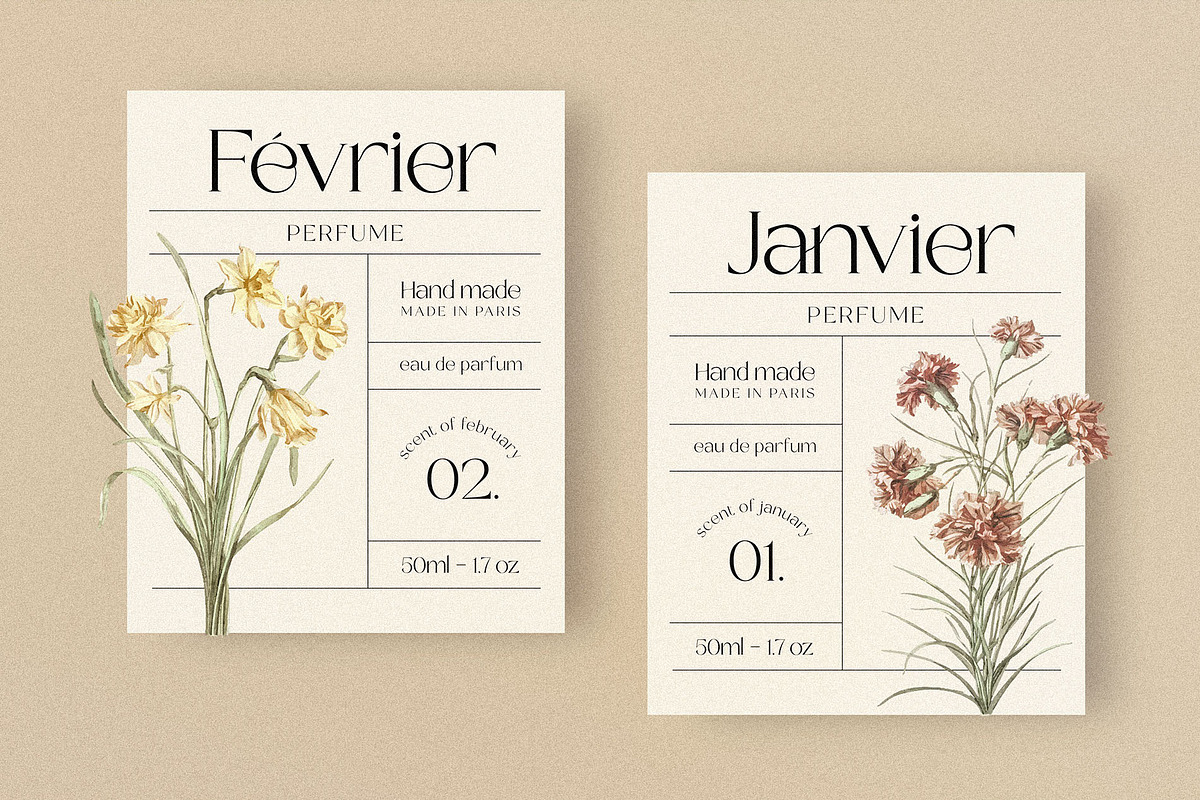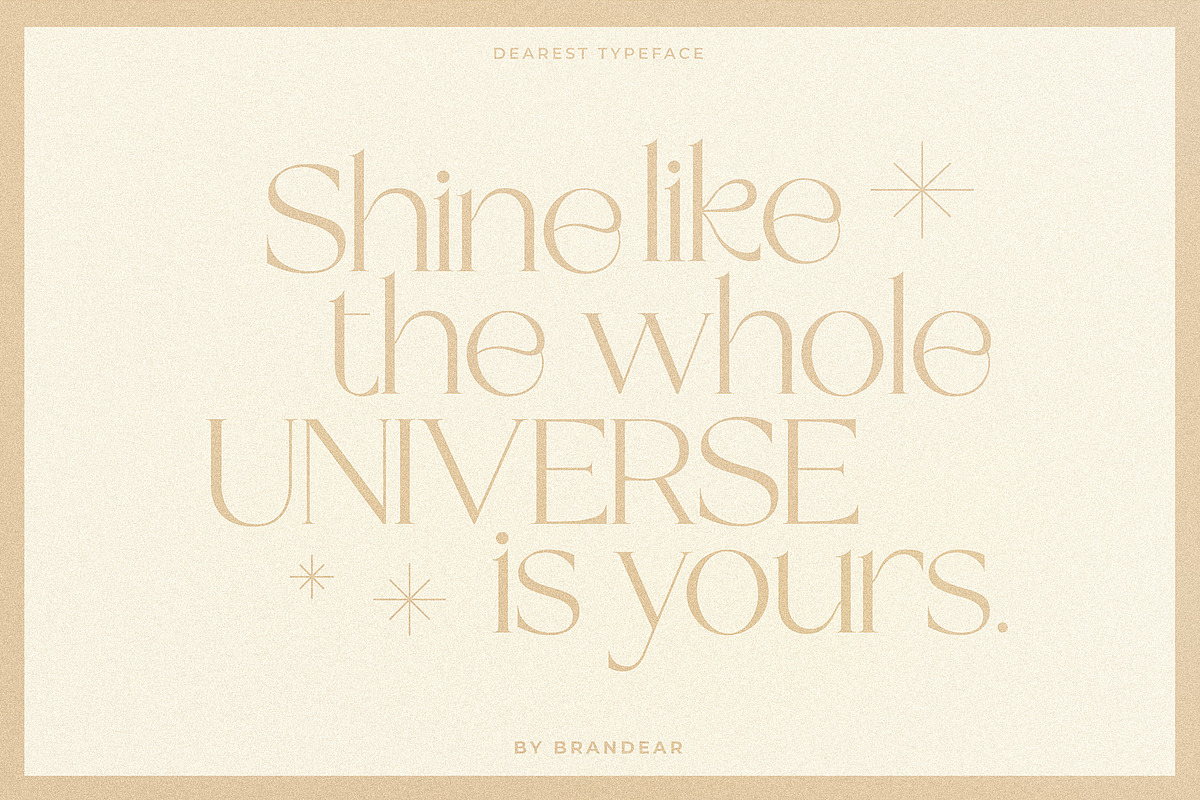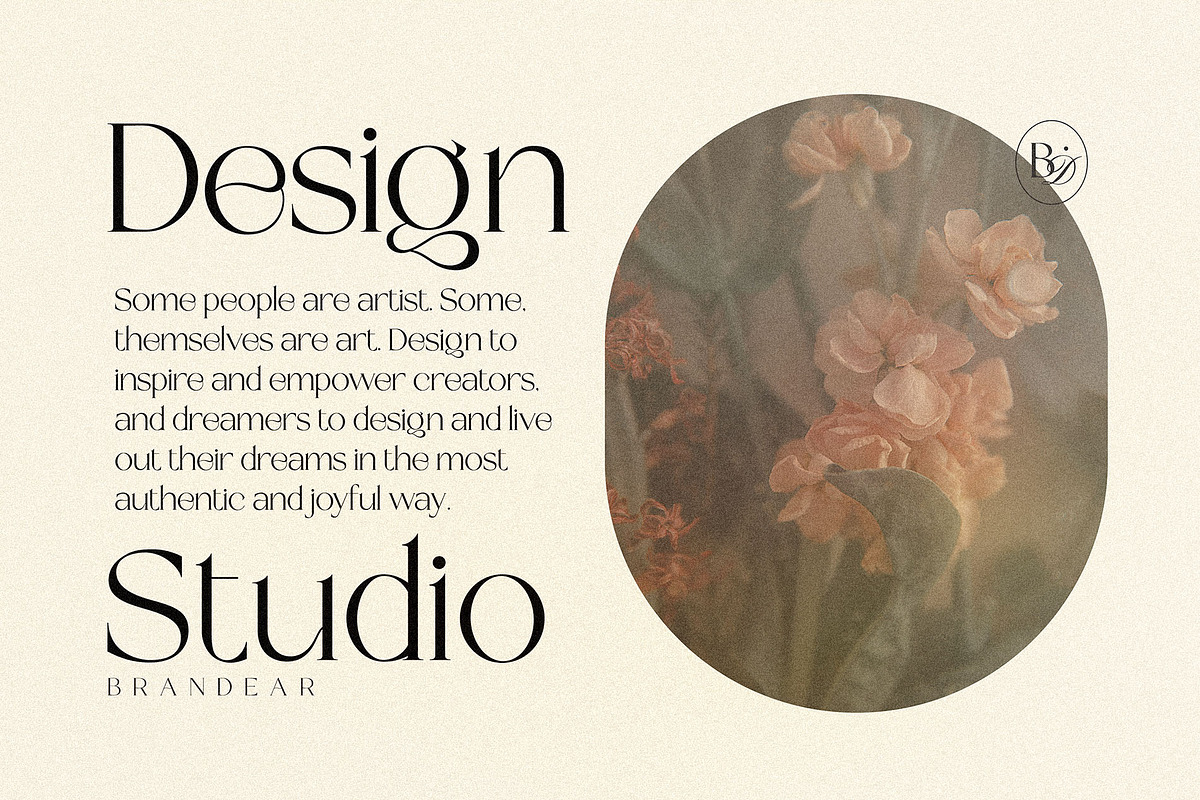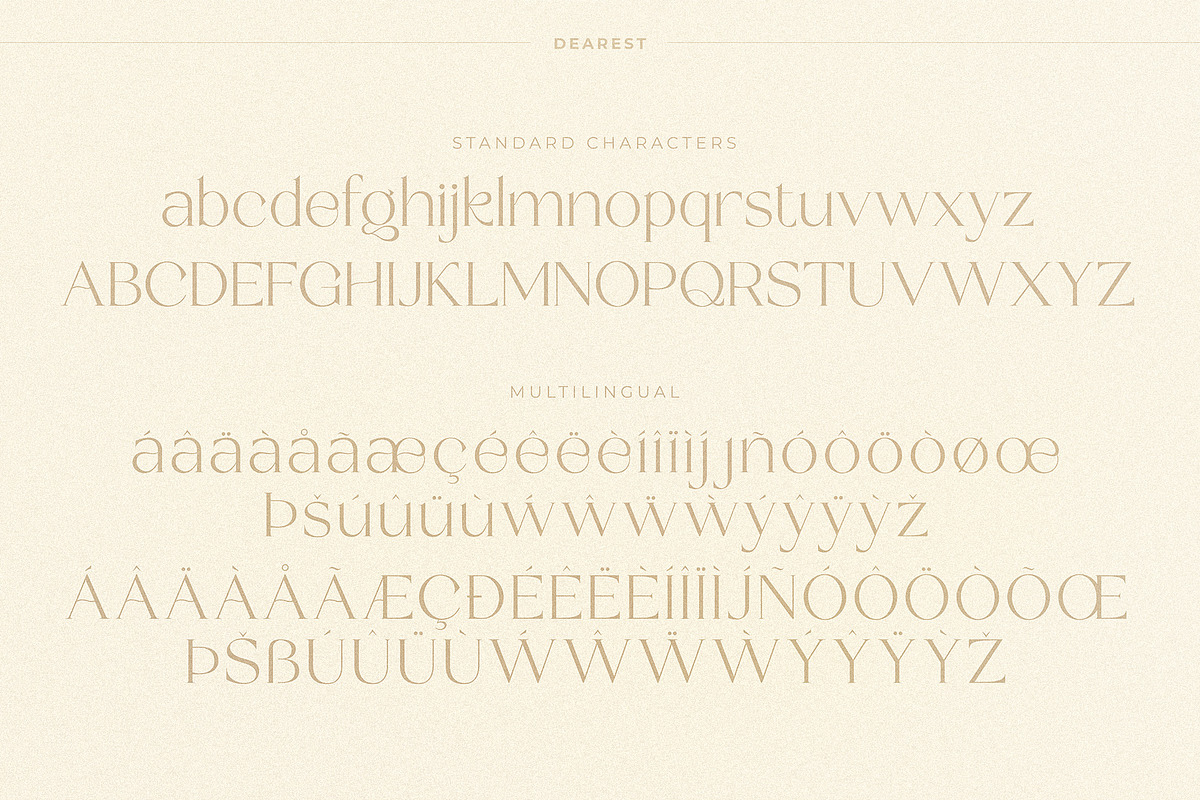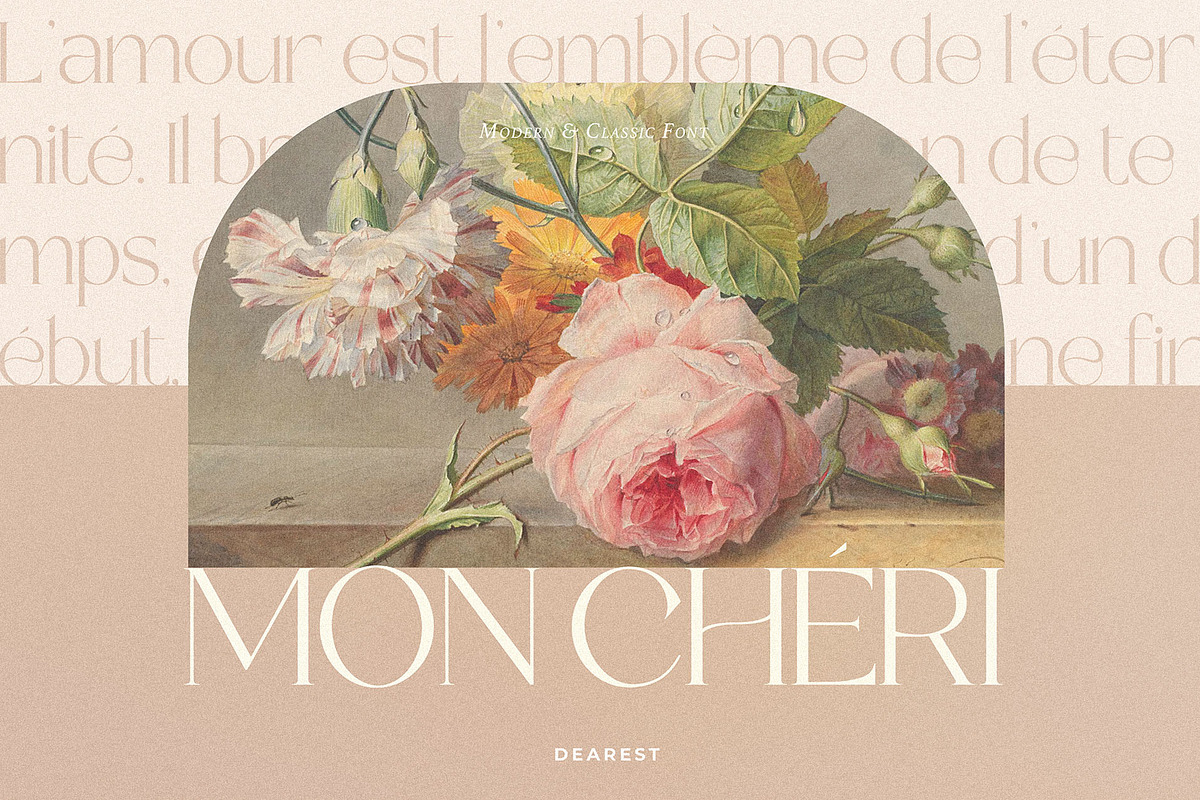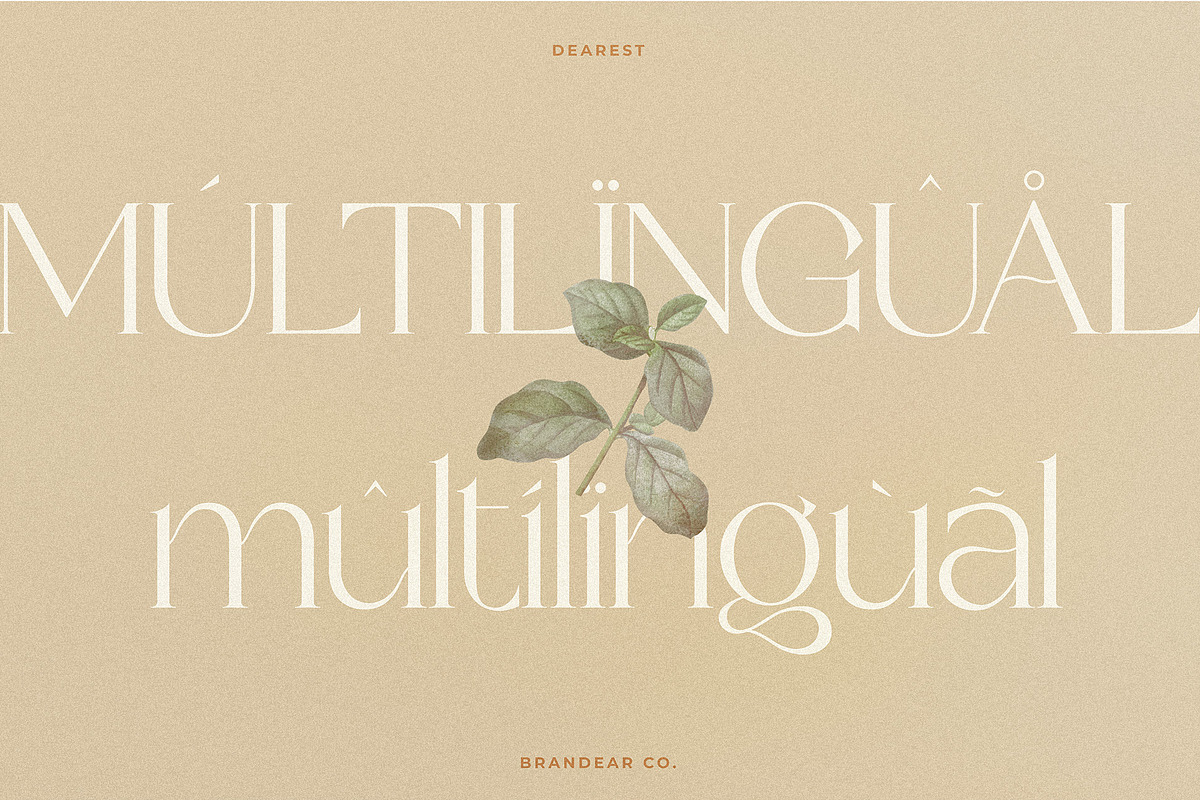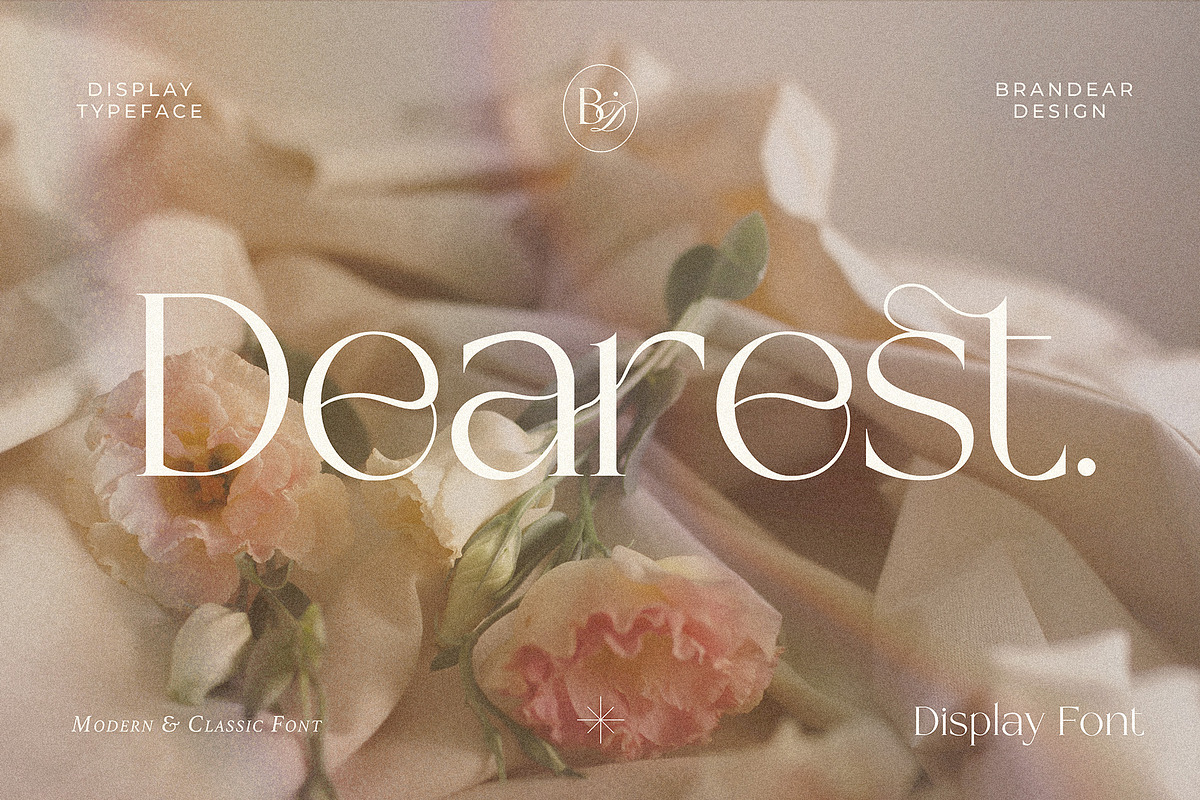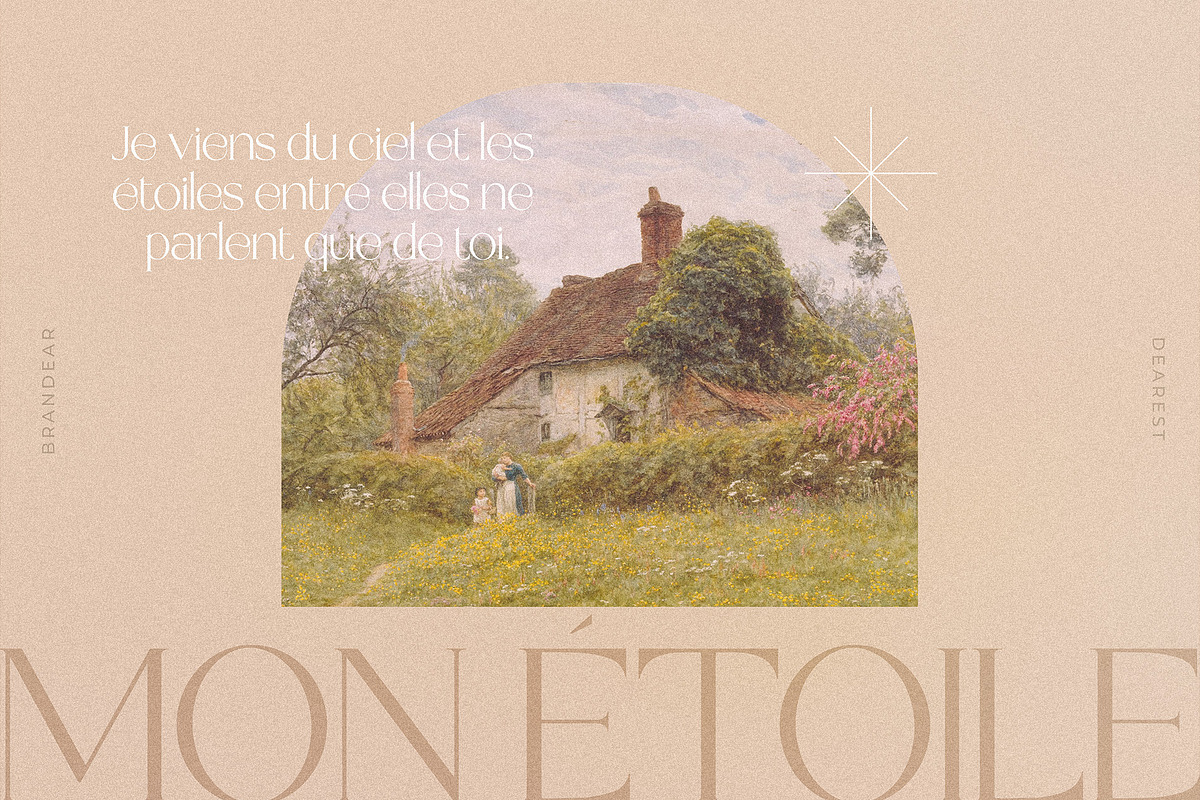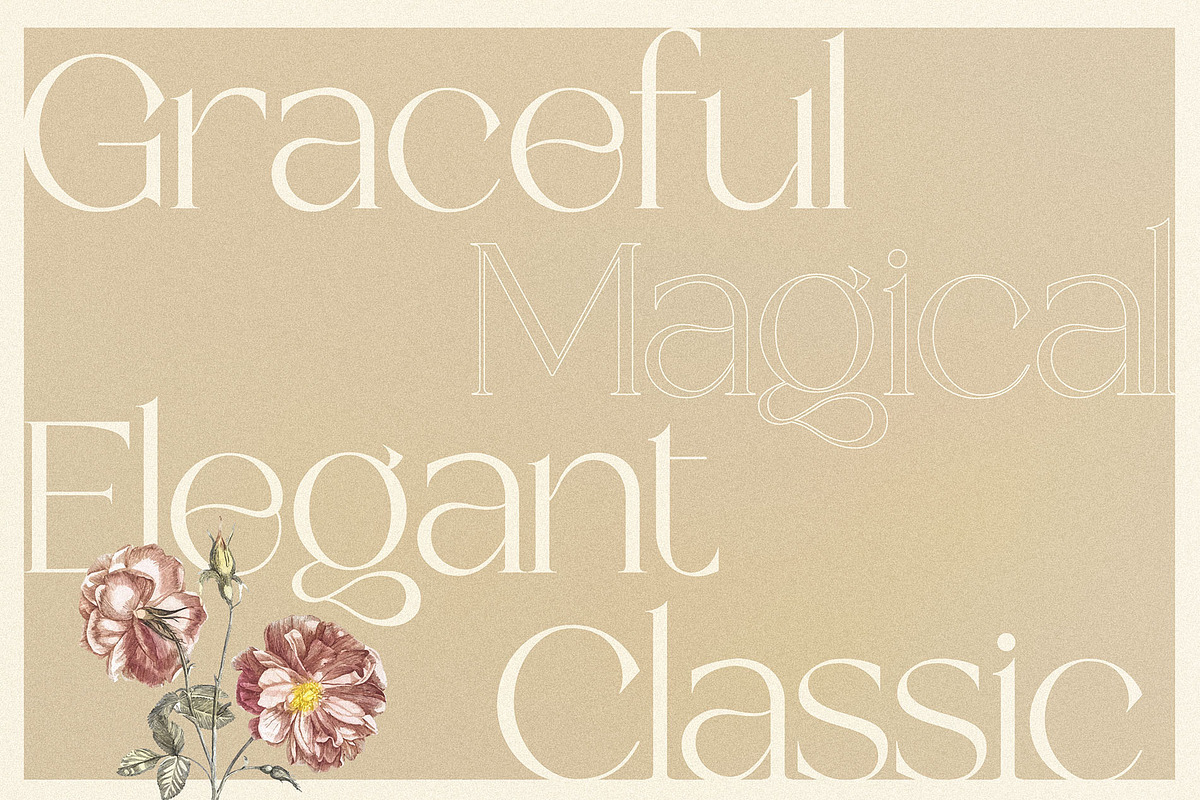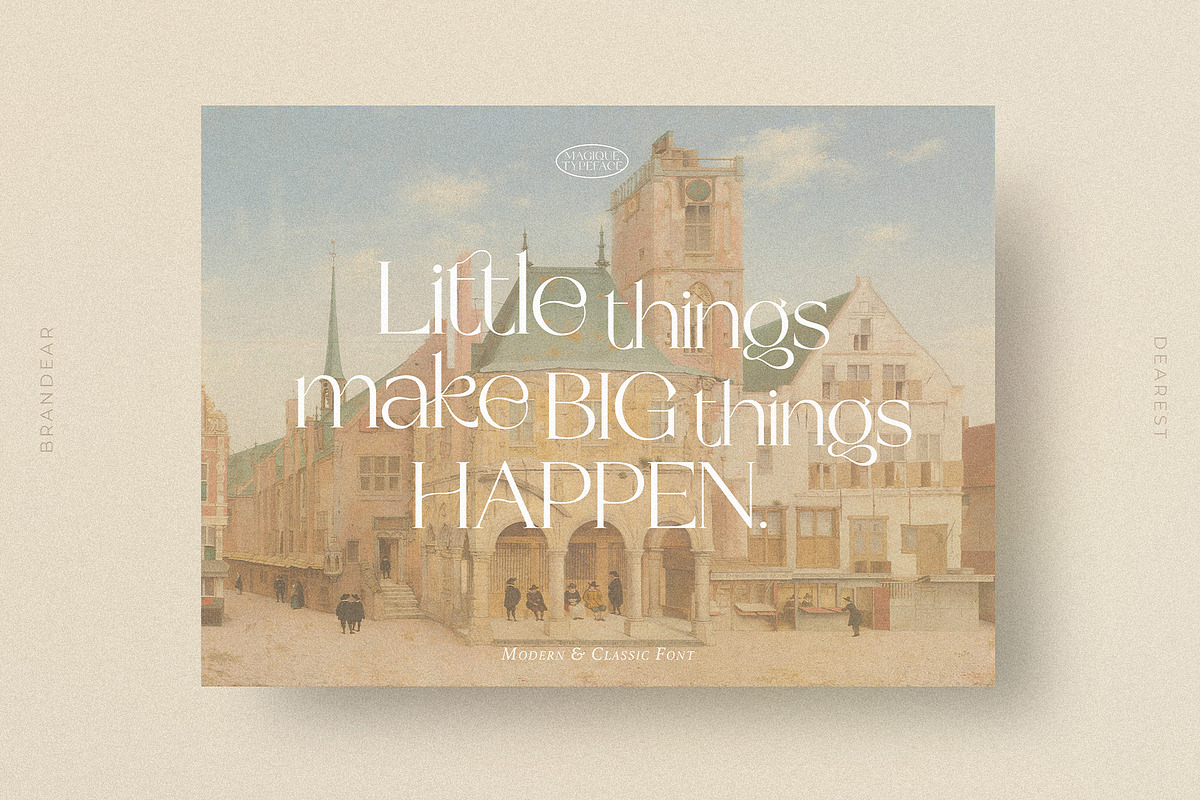
Dearest - Elegant Display Serif
Dearest is a luxurious, elegant serif font. Specially designed for creating modern, chic projects such as logos, editing, packaging, posters and more. This typeface also contains Ligatures, which makes the letters impressive and unique.
- Multi-Language Support